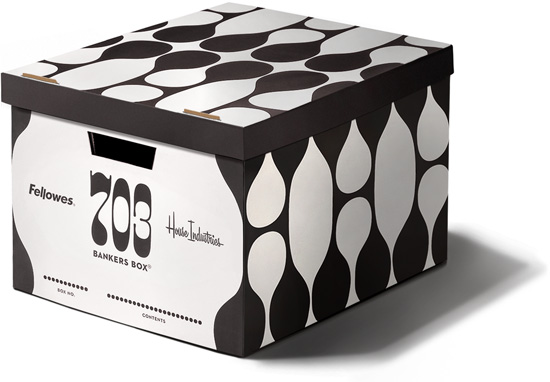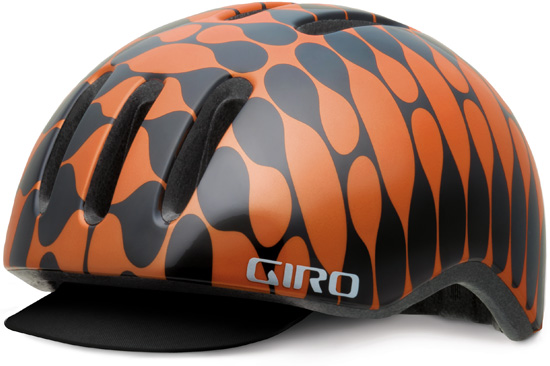
We’re currently flexing Photo-Lettering West Banjo’s bulbously burly balloon serifs on two new consumer commodities.
Closetless packrats, paperkeepers and obsessive compulsive analog archivers can now keep their important documents, Syquest drives and intrinsically-valuable flea market purchases stylishly ensconced in these functionally fetching Fellowes Bankers Boxes. Currently available exclusively at The Conran Shop in Japan.
Giro’s new futuroretroistic Reverb Banjo H pattern extrusion exudes voluminous velocipædic élan. While it may not be the best choice for an overnight on the Cahulawassee River mixed-use wilderness trail, the House Industries Banjo Reverb nimbly reconciles the need for cranial care with contemporary urban and suburban cycling irony. Available soon at your local bike shop or sporting goods store.
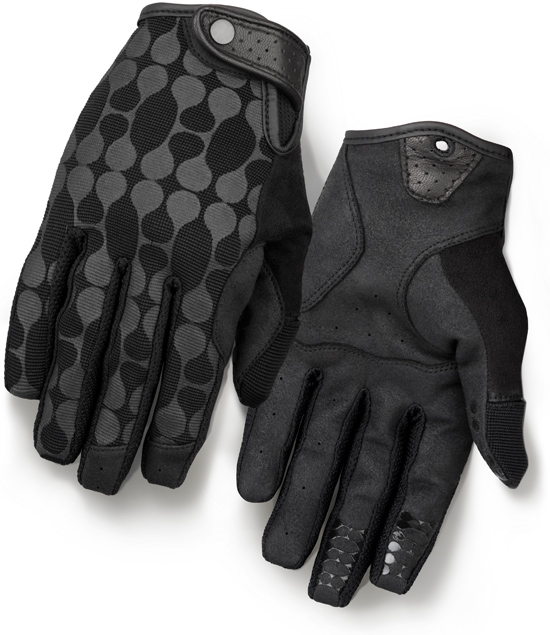
Giro’s muted black on black Gilman Glove complements the Reverb without dueling Banjos.
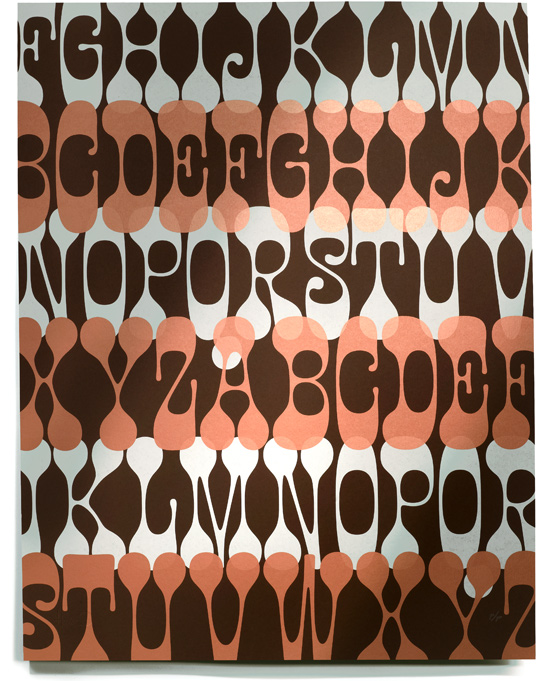
Not in the market for stylish storage, hand hedging or dome defense? Blow some of your discretionary decorating budget on our interior environmental extollation of Banjo’s protuberant panache with our hand-printed air-dried alphabet prints.